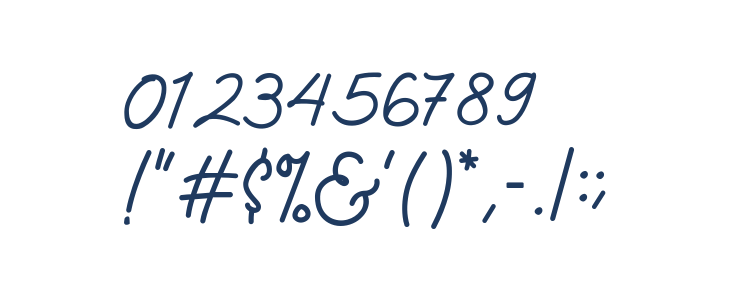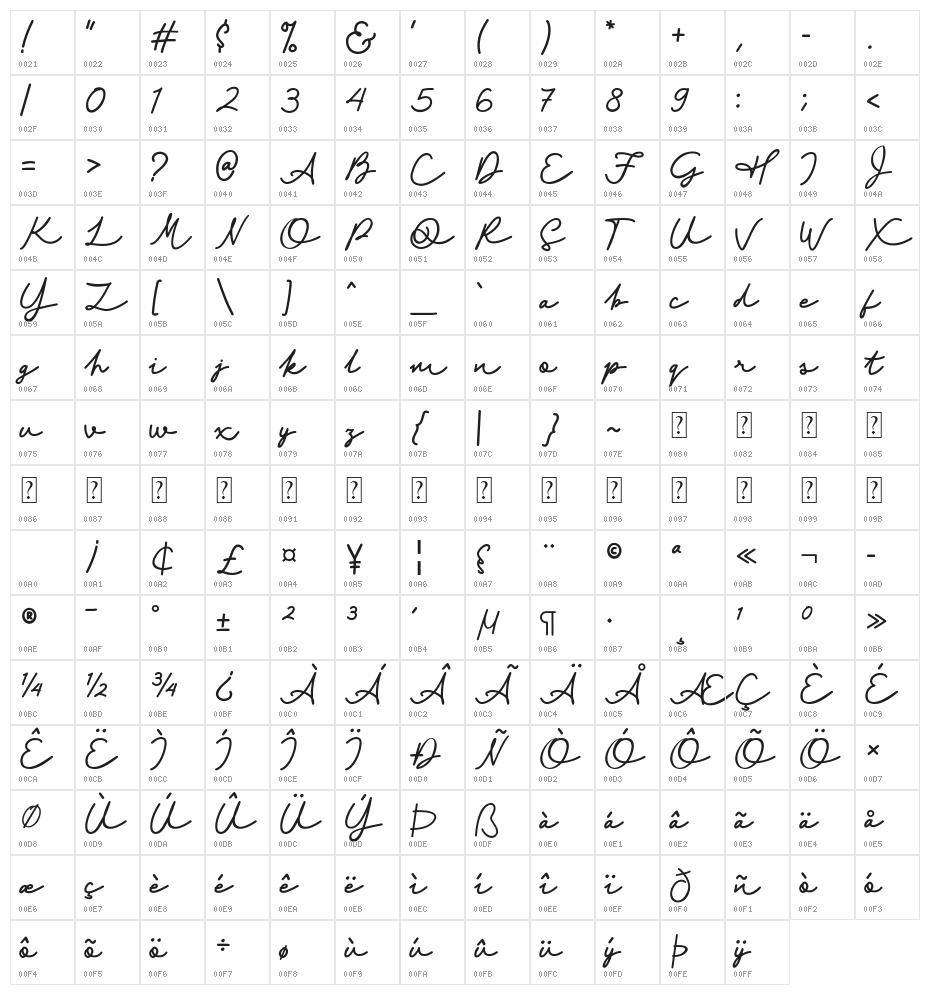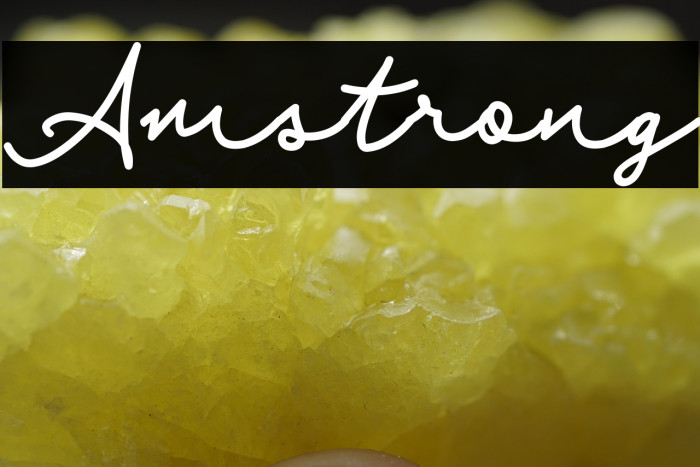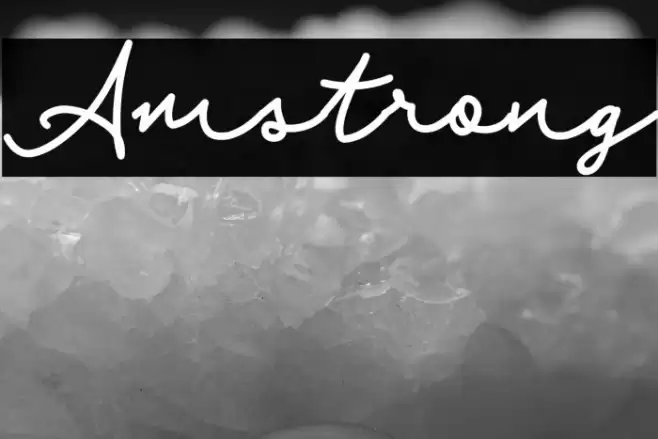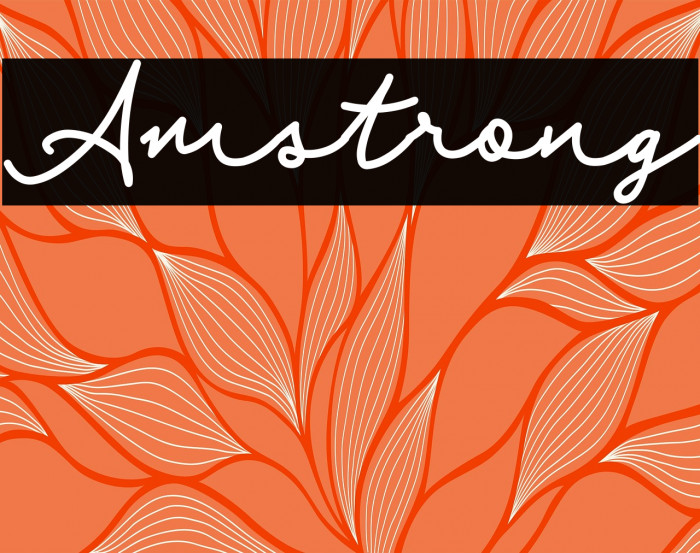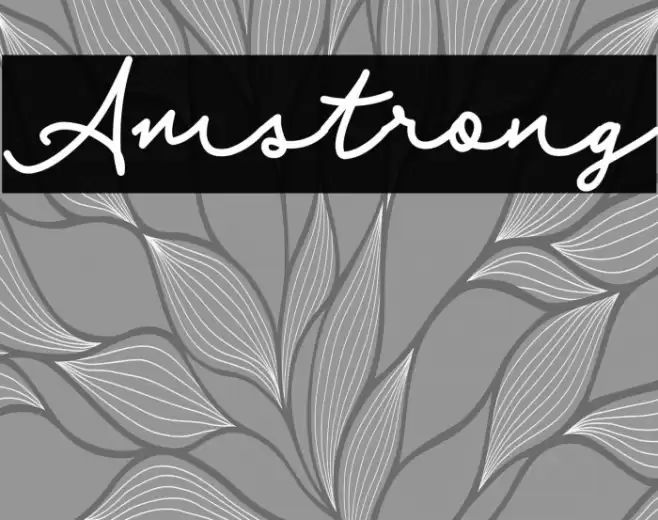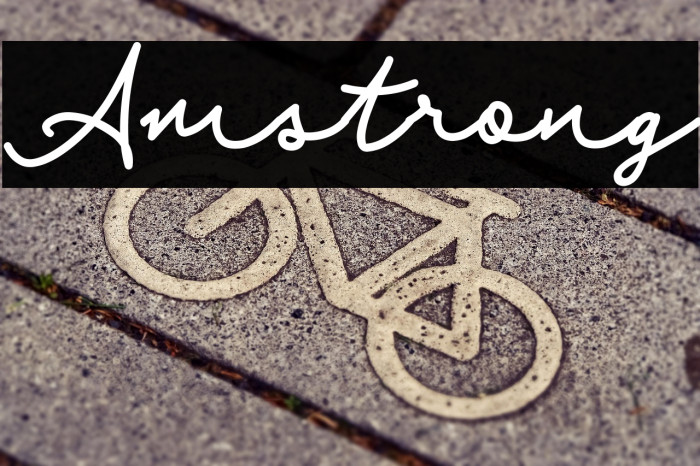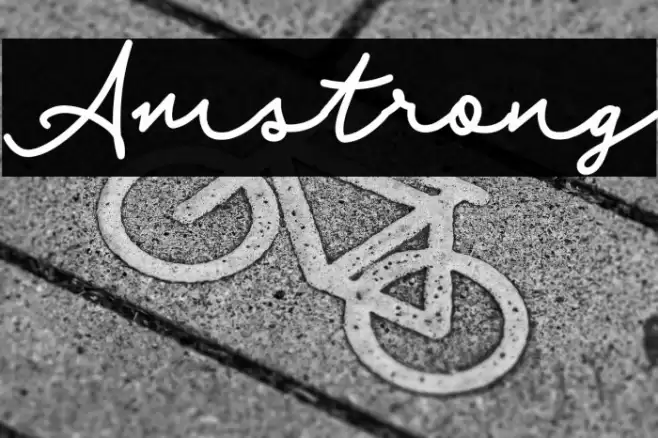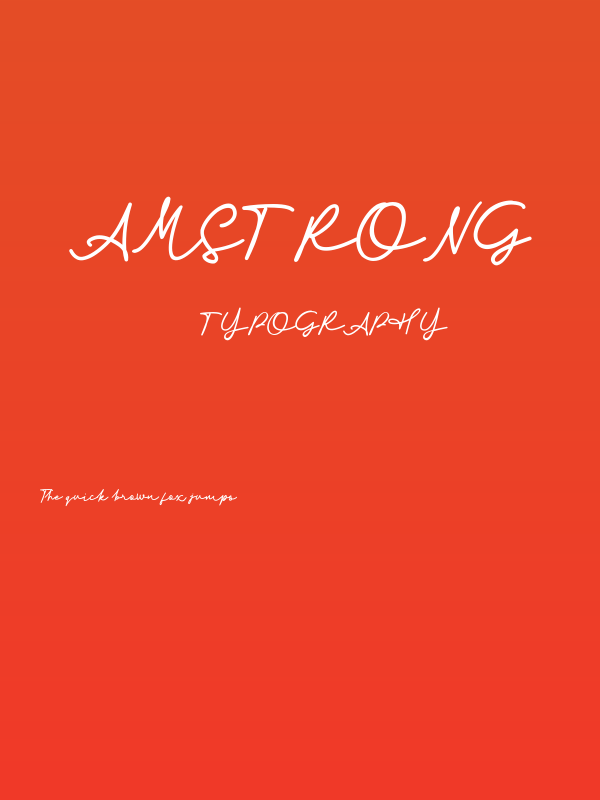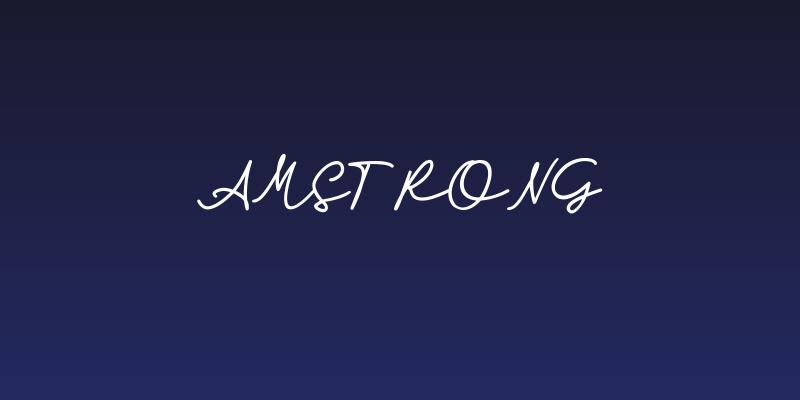
Amstrong Font
Amstrong Description
This font features a fluid and elegant script style, characterized by its smooth, flowing lines and cursive letterforms. The uppercase letters exhibit a graceful, connected appearance, while the lowercase letters maintain a consistent, handwritten look. The numerals are designed with a similar fluidity, ensuring cohesion across all characters. Special characters are crafted with the same attention to detail, enhancing the font's overall aesthetic. The font's style is reminiscent of traditional calligraphy, yet it maintains a modern touch, making it versatile for various design applications.
| Proposed Projects | Ideal for wedding invitations, greeting cards, logos, and branding materials that require a personal and elegant touch. |